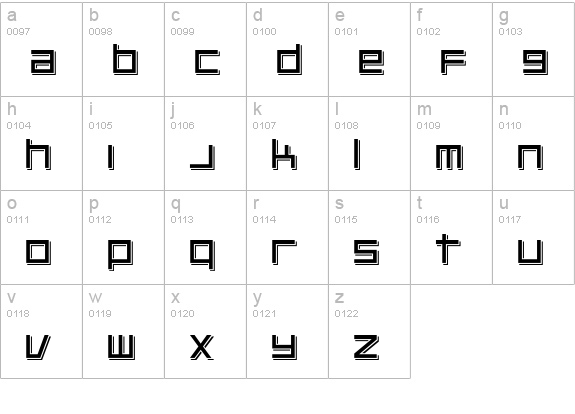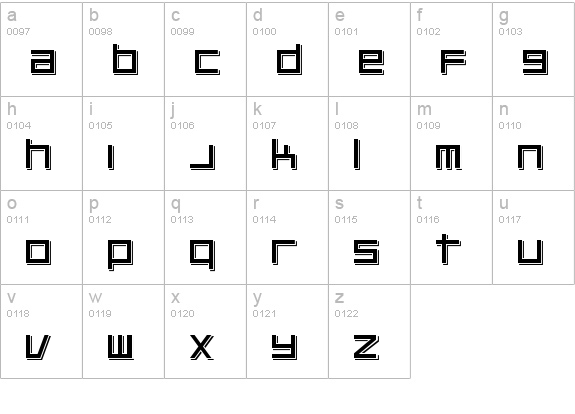
Platinum Beat BTN Raised font is a sleek and modern typeface that exudes sophistication and elegance. Its bold, raised lettering gives a sense of depth and dimension, making it perfect for adding a touch of luxury to your designs. This versatile font is ideal for a wide range of projects, from branding and packaging to invitations and posters. The best part? Platinum Beat BTN Raised font is completely free to download at FontsMarket.com! With its clean lines and contemporary style, this font is sure to elevate your creations and leave a lasting impression on your audience. Don't miss out on this opportunity to enhance your designs with the timeless beauty of Platinum Beat BTN Raised font.